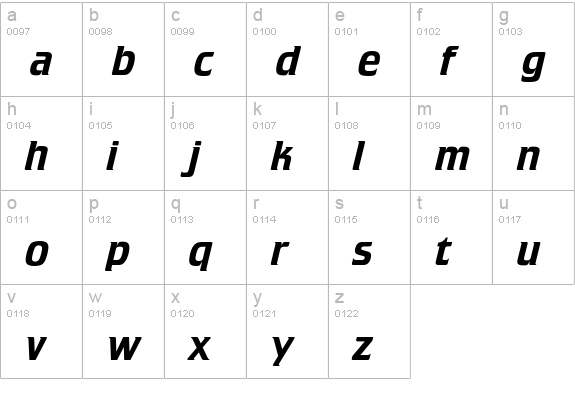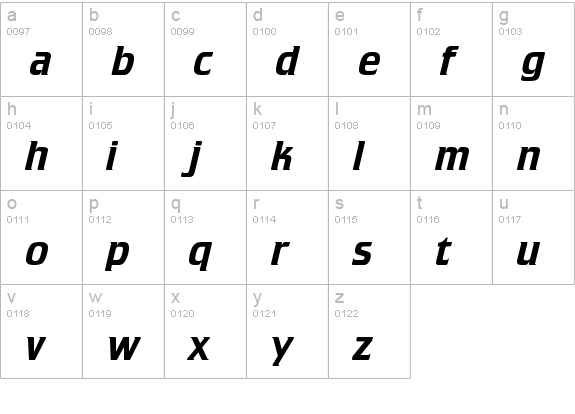
ATCrillee-Italic Font Details
ATCrillee-Italic is a distinctive, italic variant in the ATCrillee typeface family \xE2\x80\x94 well suited to design and typography projects.
ATCrillee-Italic is a stylish and sophisticated font that adds a touch of elegance to any design project. With its slanted italic style, this font exudes a sense of modernity and flair. The flowing curves and sharp lines create a harmonious balance that is visually appealing. What sets ATCrillee-Italic apart is not only its aesthetic appeal but also its versatility. Whether used for headings, body text, or graphic elements, this font delivers a polished and professional look. Its legibility and readability make it suitable for a wide range of applications, from print materials to digital designs. Best of all, ATCrillee-Italic is available for free download at FontsMarket.com. This means you can easily access this high-quality font without any hassle. Enhance your projects with the timeless charm of ATCrillee-Italic and elevate your designs to new heights.